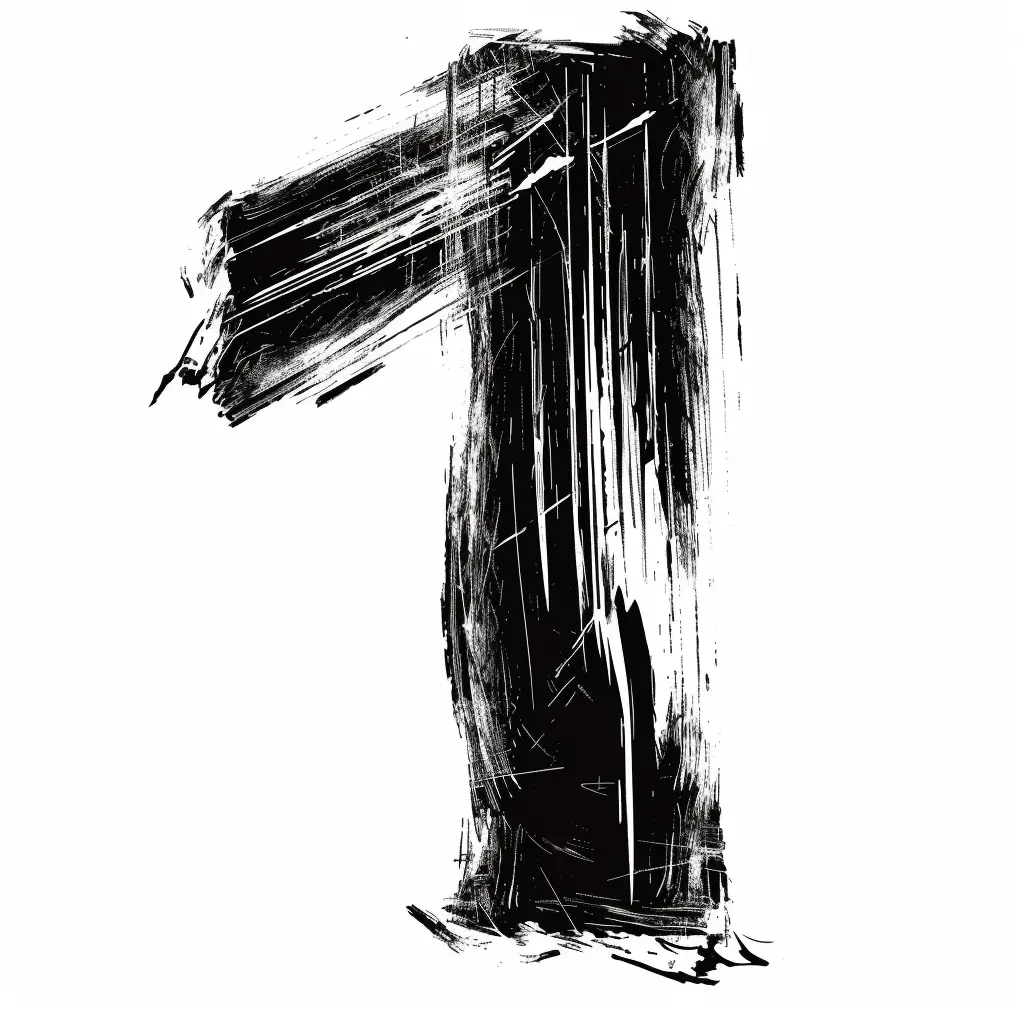
The image features a stylized, abstract representation of the number "1," rendered in bold black brushstrokes against a plain white background. The design employs a rough, textured, and expressive artistic style, with dynamic, overlapping lines and varying stroke thicknesses that create a sense of movement and depth. The stark contrast between the deep black of the number and the clean white backdrop emphasizes its bold, graphic quality.